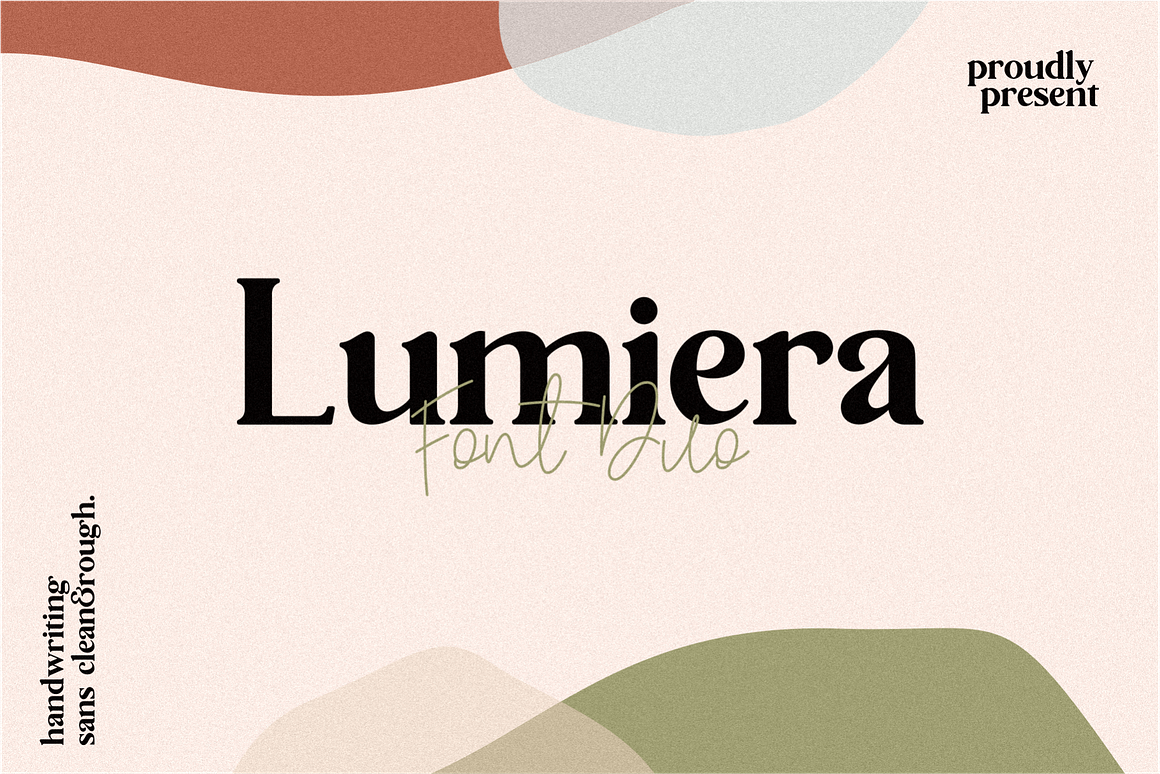
Lumiera Font Duo
Lumiera Font Duo is perfect for luxury lighting design, elegant interior branding, sophisticated wedding invitations, premium hospitality materials, upscale boutique signage, refined beauty campaigns, illuminated architectural presentations, and luminous lifestyle marketing.
What makes Lumiera Font Duo exciting is its brilliant dual-font system that captures the essence of light and illumination through complementary letterforms that work harmoniously to create radiant visual experiences. The font duo features elegant primary and secondary styles that mirror the interplay of light and shadow, creating sophisticated typographic compositions that seem to glow with inner luminosity. Its refined dual approach and luminous aesthetic make it perfect for brands that want to communicate brilliance, sophistication, and the transformative power of beautiful lighting while creating memorable experiences that illuminate their message with elegance and style.
Lumiera Font Duo family includes two complementary font styles that work together seamlessly, often featuring different weights and treatments such as light and bold variations or serif and sans-serif combinations. The duo may include luminous alternates, elegant ornamental elements, and sophisticated decorative features that enhance the fonts' illuminating aesthetic, providing designers with flexible options for creating brilliant typographic compositions that celebrate the beauty of light and elegant design.